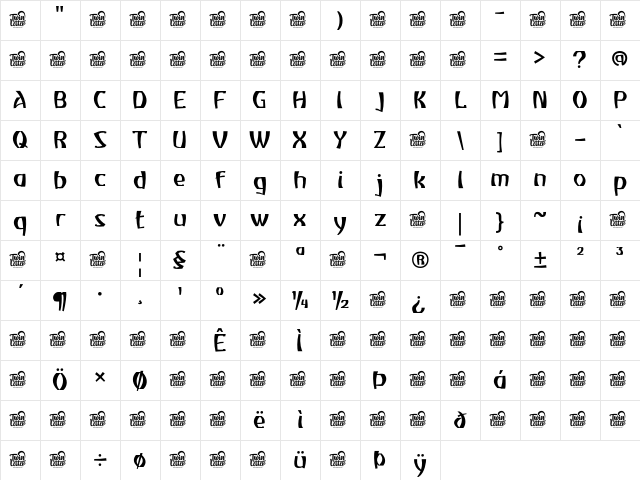
Atiku Light Regular Free Font
Atiku Light Regular
Foundry: twinletter
Designer: afri
Design Context for Atiku Light
Atiku Light is a composed and adaptable typeface that performs quietly and consistently across a wide range of design contexts. Its slender proportions lend an understated elegance to any composition.